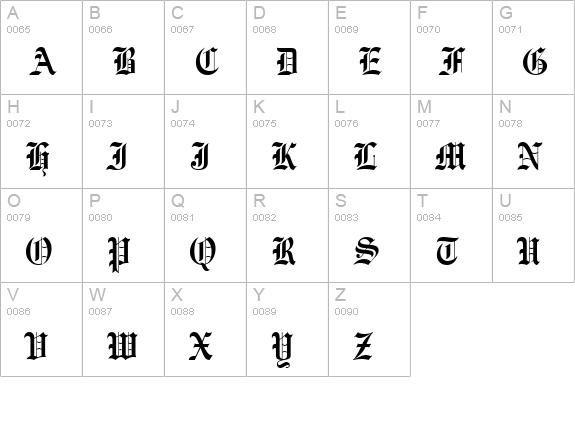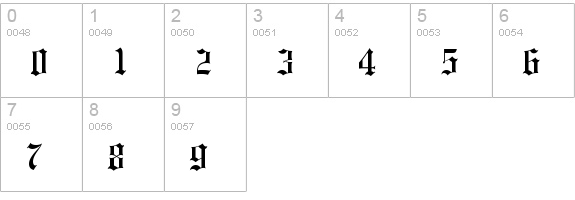
Engravers' Old English BT font exudes a sense of classic elegance and timelessness with its intricate and ornate letterforms. This font captures the essence of old-world craftsmanship, making it perfect for projects that require a touch of sophistication and tradition. Whether you're designing invitations, certificates, or signage, Engravers' Old English BT font adds a refined and distinguished look to any piece. The best part? Engravers' Old English BT font is available for free download at FontsMarket.com. This means you can easily access this exquisite font and incorporate it into your designs without any cost. Don't miss out on the opportunity to enhance your projects with the timeless beauty of Engravers' Old English BT font - download it today and add a touch of class to your work.